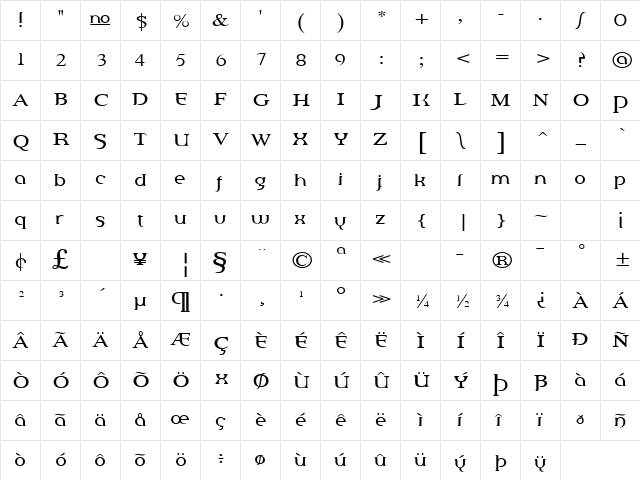
Percolator Text Regular Free Font
Percolator Text Regular
Design Context for Percolator Text
Percolator Text is a composed and adaptable typeface that performs quietly and consistently across a wide range of design contexts.